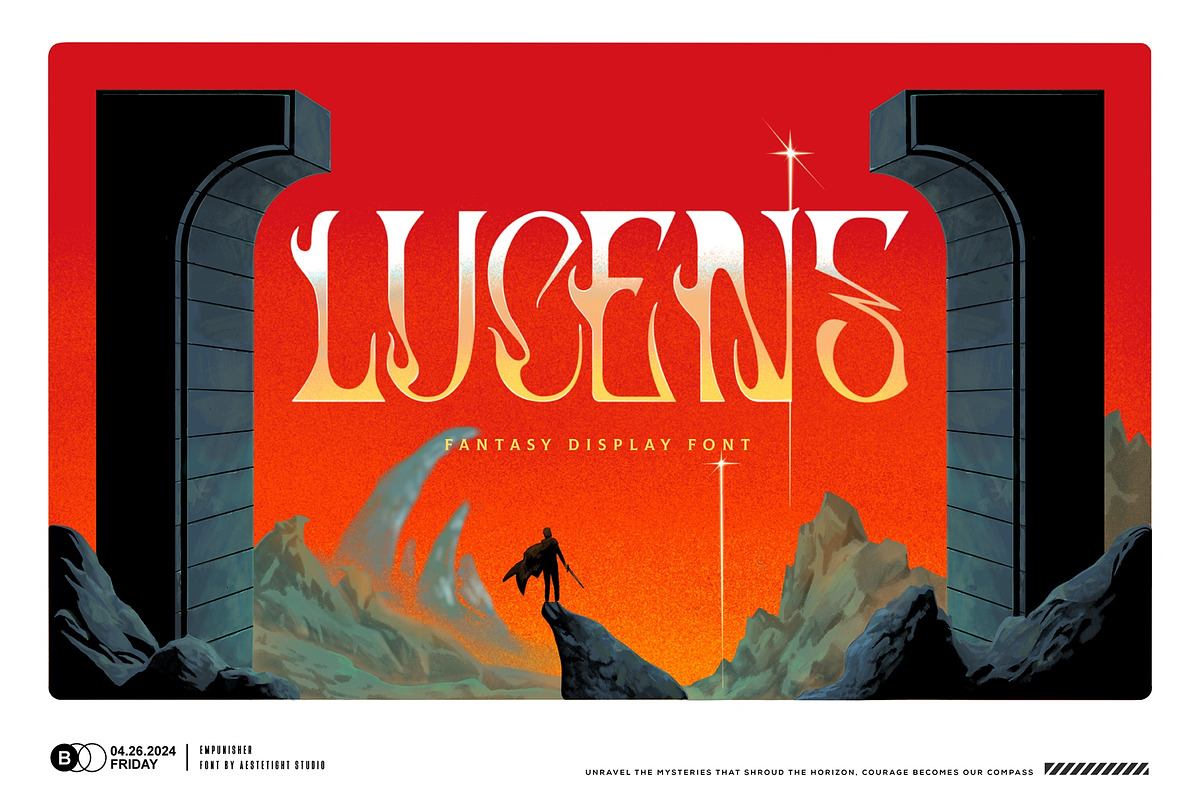
Lucens - Fantasy display font Free Download
Lucens - Fantasy Display Font Free Download is a magical and whimsical typeface crafted to bring fairytale vibes and mystical energy to your designs. With its enchanting curves, unique glyphs, and storybook style, Lucens is perfect for fantasy book covers, game titles, movie posters, event invitations, and anything that needs a touch of otherworldly charm.
What makes Lucens - Fantasy Display Font Free Download so captivating is its ability to instantly transport the viewer to another realm. Every character is full of personality, blending fantasy aesthetics with elegant craftsmanship. Whether you're designing for a mythical world or just want your project to feel magical, Lucens delivers with flair.